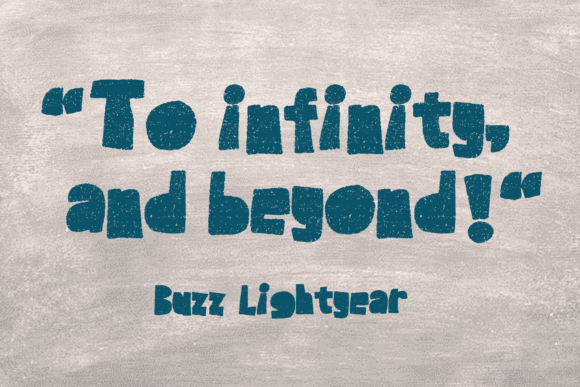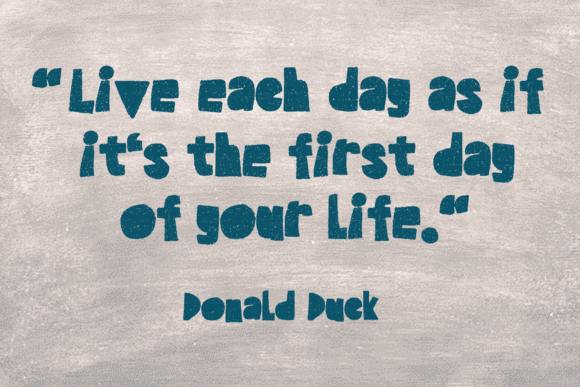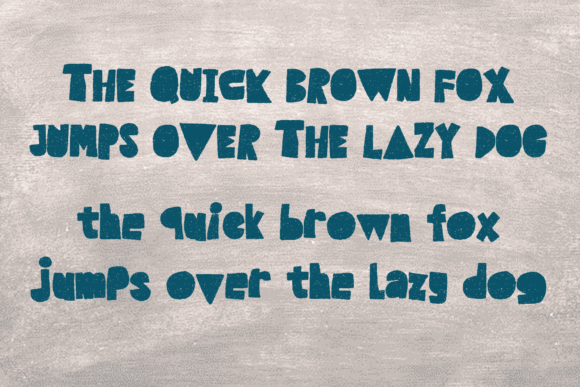
Introduction to Chit Chat Font
Chit Chat is a fun, sketchy, pop-style handwritten display font.
You can use it for anything ranging from t-shirts, kids’ book designs, and greeting cards to stickers and posters, or anything that needs a whimsical touch Fall in love with its incredibly versatile style and use it to create lovely designs.
Key Features of Chit Chat Font